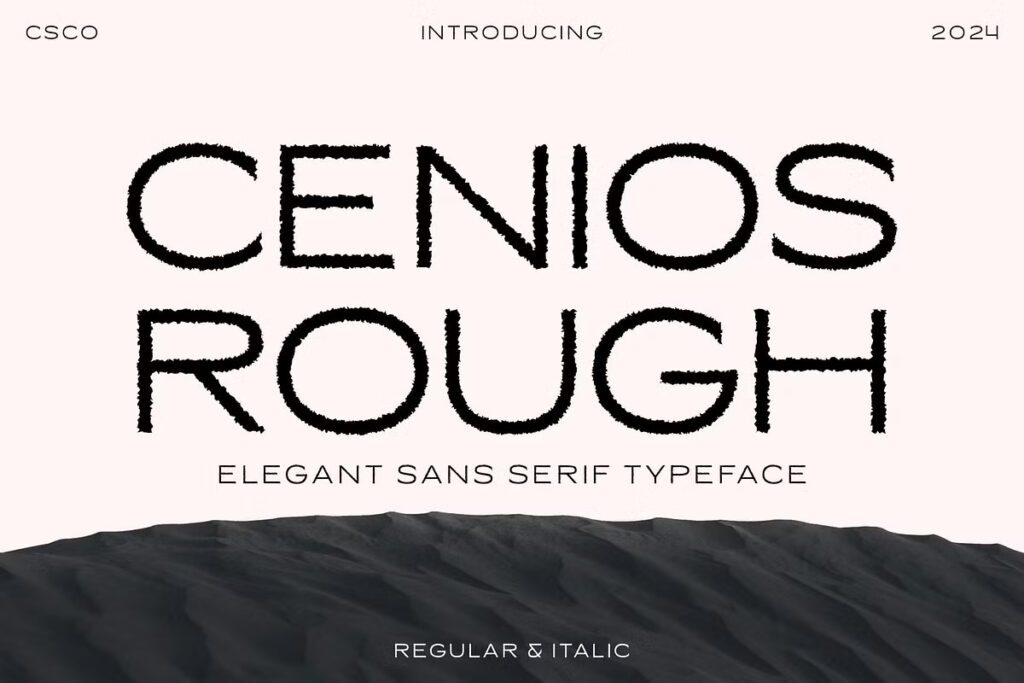
Cenios Rough – Modern Sans Serif with a Rugged Edge
If you’re seeking a bold, contemporary font that stands out with a rugged texture, Cenios Rough is your go-to solution. Developed by Craft Supply Co., this modern sans serif font combines expanded letterforms with a raw, rough effect, perfect for adding striking elements to your design projects.
Why Choose Cenios Rough?
Dynamic and Edgy Design:Cenios Rough features a bold look with its expanded letterforms and rough texture. Its unique style is both modern and edgy, making your typography pop with a rugged, dynamic appeal.
Perfect for Bold Projects:This font is ideal for branding, posters, editorial layouts, logos, and promotional materials. Cenios Rough’s combination of contemporary sophistication and raw artistic flair will elevate your design projects, ensuring they stand out.
Versatile Usage:With uppercase and lowercase characters, numerals, punctuation, and multilingual support, Cenios Rough is highly versatile and suitable for various projects across different industries.
Features of Cenios Rough
Uppercase & Lowercase Characters: For versatile text styles.
Numerals & Punctuation: OpenType standard ensures high-quality output.
Multilingual Support: Supports accents and characters for multiple languages.
Ideal Uses for Cenios Rough
Bold Branding: Create logos and brand identities that are bold, dynamic, and full of character.
Posters & Editorials: Perfect for adding a rough, modern edge to any magazine layout or promotional poster.
Artistic Layouts: Whether for web or print, Cenios Rough adds a sophisticated yet rugged look to your project.
Elevate Your Designs with a Rugged Touch
Choosing Cenios Rough means elevating your designs with a modern sans serif font that delivers both style and edge. The combination of expanded letterforms and a rough effect ensures your work stands out in bold, innovative ways.